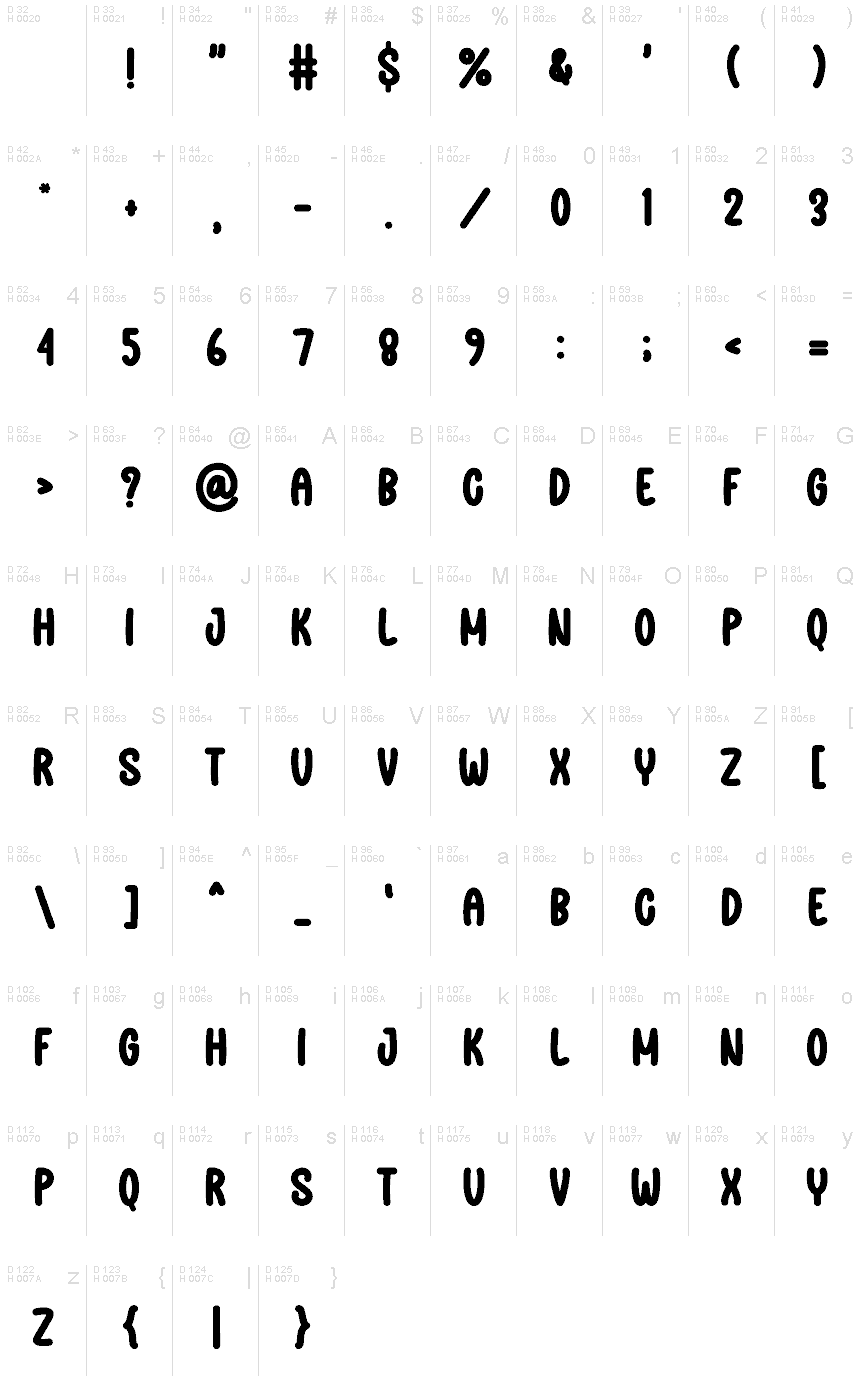
School Teachers
School Teachers font by Andi Moz is a free handwritten font that captures the charm of chalk-like textures and hand-drawn appearances. This condensed typeface offers a casual aesthetic and friendly vibe, making it suitable for various educational themes or any design in need of a welcoming tone.
Use it in class shopping catalogs, school banners, book covers, notebooks and agendas, presentations, greeting cards, inspirational quotes posters…